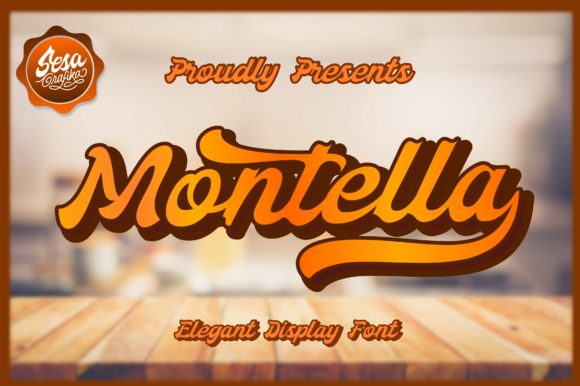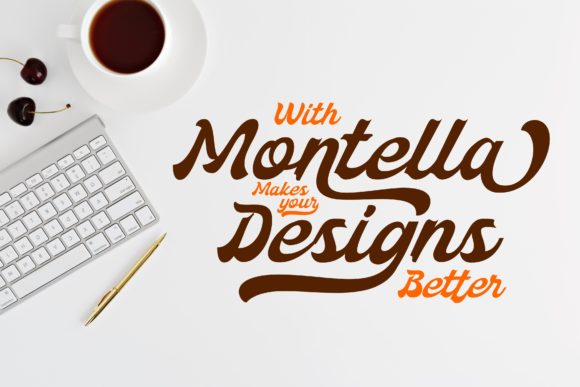
About Montella Font
Montella is a gorgeous and retro styled script font. It is crafted to give your headlines and logotype projects a stylish touch. This font is PUA encoded which means you can access all of the glyphs and swashes with ease!Â